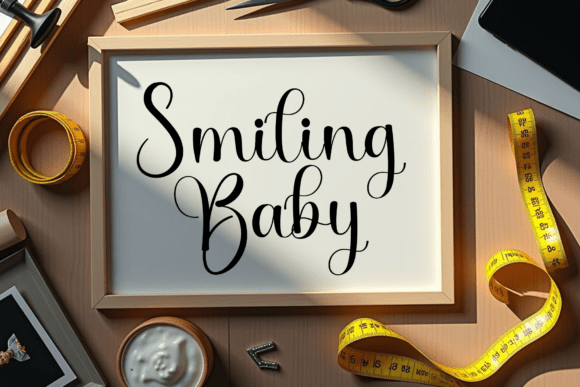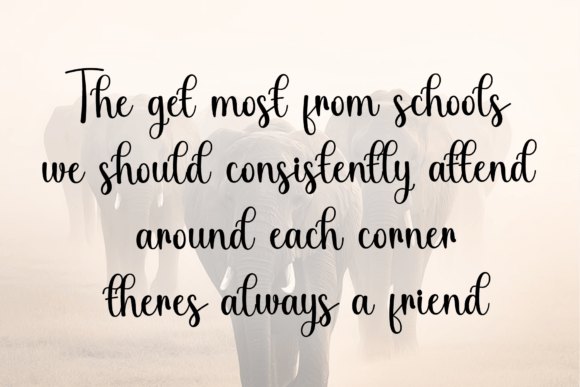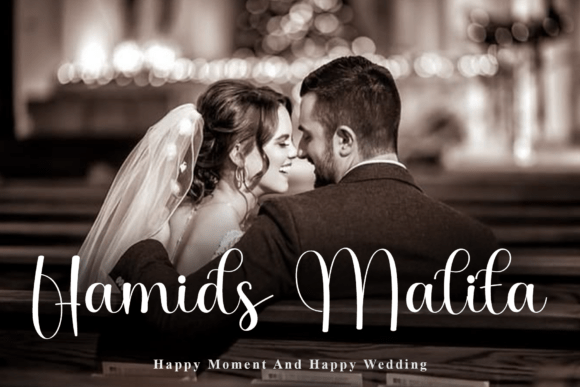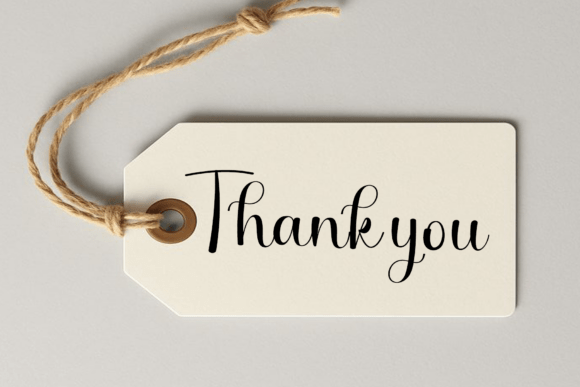
Make a Grand Impression with Elephants Font: Elevate Your Designs with Sophistication and Style
In the world of typography, few fonts manage to convey the perfect blend of elegance, sophistication, and modernity. However, Elephants Font stands out as a remarkable exception. This signature-style font is meticulously designed to bring a touch of class and refinement to any design project. Whether you’re working on luxury lifestyle branding, photography watermarks, elegant wedding invitations, or boutique stationery, Elephants Font is the ideal choice to make a lasting impression.
The Unique Characteristics of Elephants Font
Elephants Font boasts a distinctive design that sets it apart from other typefaces. Its tall, slender ascenders and gracefully looped descenders are crafted to mimic the effortless rhythm of a handwritten signature. This feature lends an air of natural flow and authenticity to the font, making it perfect for designs that require a personal touch. The clean, thin lines of Elephants Font contribute to its refined and airy appearance, ensuring that your designs exude sophistication and elegance.
Key Features of Elephants Font
• Tall and Slender Ascenders: Adding a touch of sophistication and elegance to your designs.
• Gracefully Looped Descenders: Providing a natural flow and rhythm to the font.
• Clean and Thin Lines: Offering an airy and refined appearance perfect for high-end projects.
• Timeless Silhouette: Ensuring your designs feel personal, professional, and undeniably stylish.
Ideal Uses for Elephants Font
Elephants Font’s versatility makes it suitable for a wide range of design applications. Here are some of the ideal uses for this sophisticated typeface:
Luxury Lifestyle Branding
For luxury brands, establishing a high-end image is crucial. Elephants Font can help you achieve this with its refined and elegant appearance. Use it for logos, packaging, or marketing materials to convey a sense of sophistication and exclusivity.
Photography Watermarks
Add a touch of class to your photography with Elephants Font. Its clean and thin lines make it perfect for watermarks that require a subtle yet sophisticated look. This will not only protect your work but also enhance its visual appeal.
Elegant Wedding Invitations
Make your wedding invitations truly special with Elephants Font. Its timeless silhouette and elegant design ensure that your invitations will set the tone for a memorable and stylish event.
Boutique Stationery
For boutique stationery, a unique and sophisticated font is essential. Elephants Font offers the perfect blend of modernity and elegance, making it ideal for letterheads, business cards, and other stationery items.
Why Choose Elephants Font?
With so many fonts available, why choose Elephants Font? Here are a few compelling reasons:
• Unique Design: Elephants Font offers a distinctive design that will set your designs apart from the rest.
• Versatility: Suitable for a wide range of design applications, from luxury branding to elegant wedding invitations.
• Elegance and Sophistication: Perfect for high-end projects that require a touch of class and refinement.
• Timeless Appeal: Ensures your designs remain stylish and relevant for years to come.
Font Name Elephants Font
Author Sansana
Elephants Font is a sophisticated signature-style font that can elevate your designs to new heights. Its unique blend of natural flow and modernity makes it perfect for luxury lifestyle branding, photography watermarks, elegant wedding invitations, and boutique stationery. With its clean, thin lines and timeless silhouette, Elephants Font is the ideal choice for designers and crafters looking to make a grand impression. So why wait? Discover the elegance and sophistication of Elephants Font and take your designs to the next level.